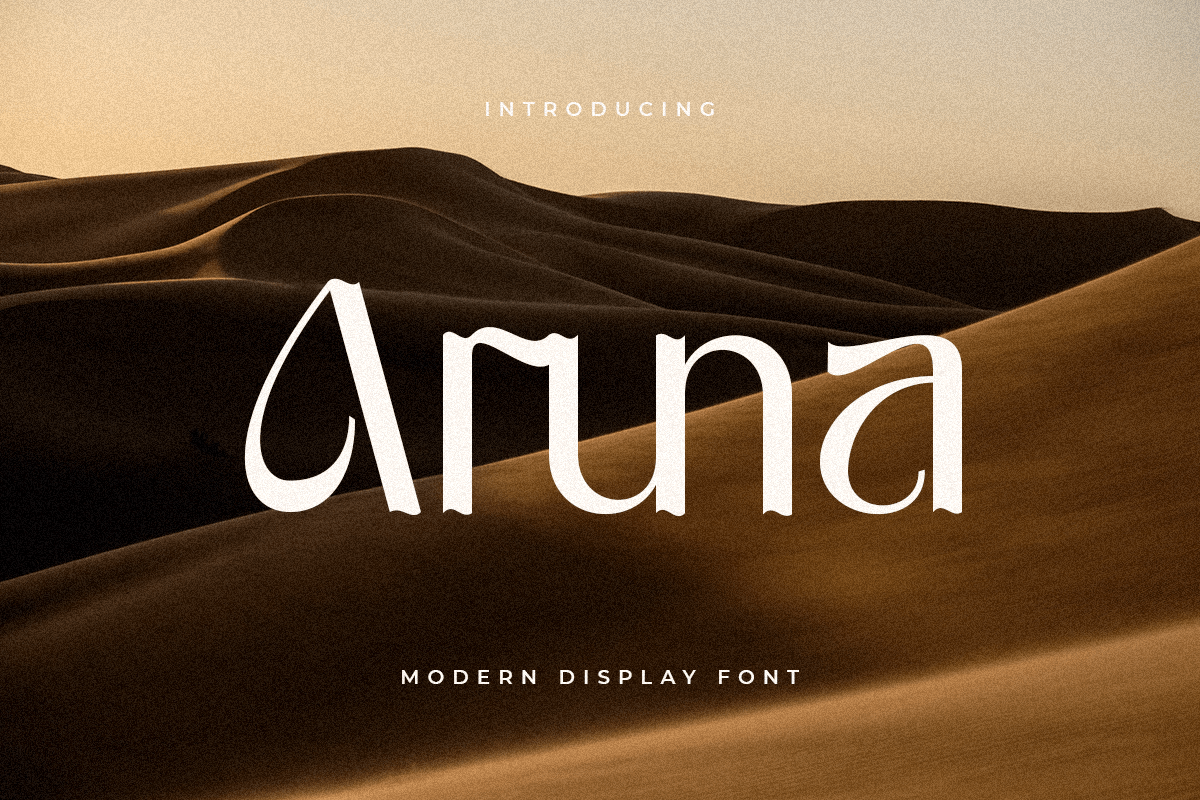
Aruna
-Modern Display Font
Aruna
Aruna is a Modern Display Font
A New font that we created special for Unique branding needs, with extra ligature in unique style, ready to add value of your brand. It’s so nice to leverage designer or product owner that need solutions to make their design look more unique and casual.